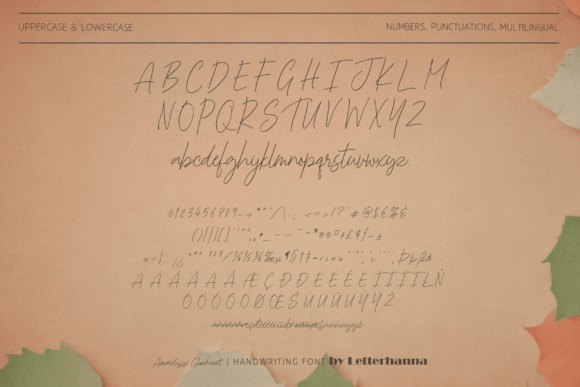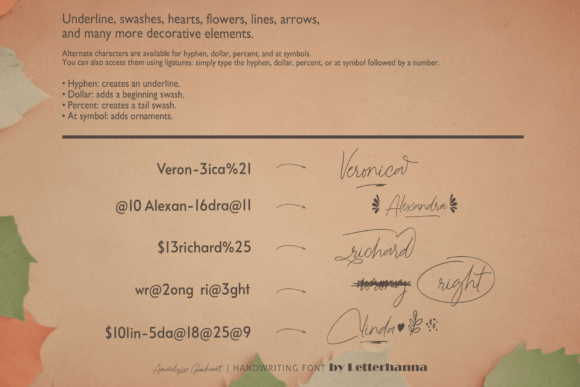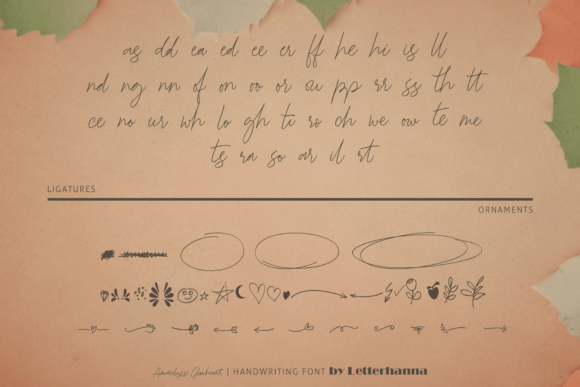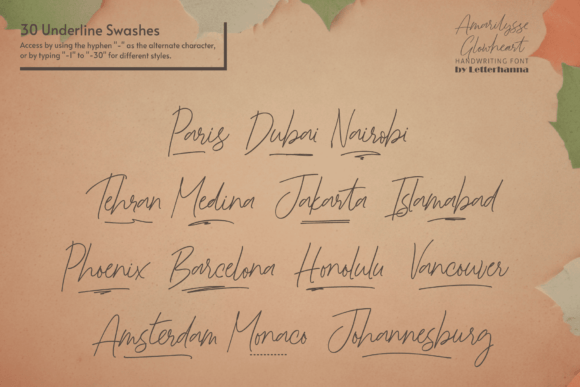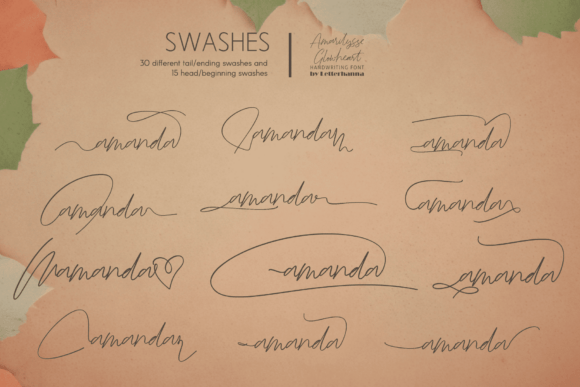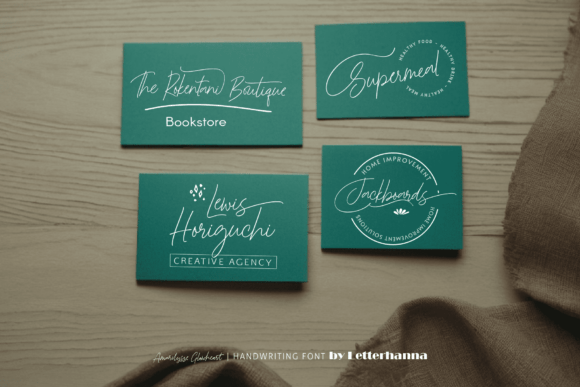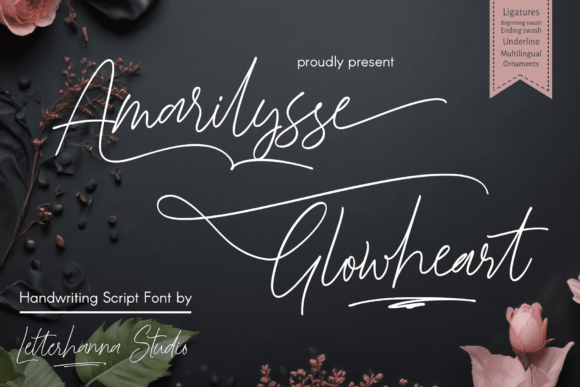
Introducing Amarilysse Glowheart: The Elegant Handwriting Script Font
In the world of typography, few fonts manage to capture the essence of elegance and warmth as effectively as Amarilysse Glowheart. This beautiful handwriting script font is designed to bring a touch of sophistication and charm to any project, making it perfect for designers and crafters looking for a versatile and stylish font. With its flowing curves and heartwarming strokes, Amarilysse Glowheart radiates a sense of luxury and refinement that is sure to leave a lasting impression.
A Font that Exudes Elegance and Warmth
Amarilysse Glowheart is a masterfully crafted font that boasts smooth connections, elegant ligatures, and beautiful swashes. Its flowing curves and heartwarming strokes evoke the charm of natural penmanship, making it an ideal choice for a variety of applications, from wedding invitations and branding to social media posts and personal projects. Whether you’re looking to add a touch of elegance to your designs or simply want to create something beautiful, Amarilysse Glowheart is the perfect font for the job.
One of the things that sets Amarilysse Glowheart apart from other fonts is its versatility. Its elegant and refined design makes it perfect for a wide range of applications, including:
- Wedding invitations and stationery: Add a touch of luxury and sophistication to your wedding invitations and stationery with Amarilysse Glowheart.
- Branding: Use Amarilysse Glowheart to create a cohesive and elegant brand identity that will leave a lasting impression on your customers.
- Social media posts: Add a touch of elegance and refinement to your social media posts with Amarilysse Glowheart.
- Personal projects: Use Amarilysse Glowheart to create beautiful and unique personal projects, such as journals, planners, and crafts.
Amarilysse Glowheart is more than just a beautiful font – it also boasts a range of features and benefits that make it a joy to use. Some of the key features and benefits of Amarilysse Glowheart include:
- Smooth connections: Amarilysse Glowheart features smooth connections that create a sense of flow and continuity.
- Elegant ligatures: The font includes elegant ligatures that add a touch of sophistication and refinement.
- Swashes: Amarilysse Glowheart features beautiful swashes that can be used to add a touch of elegance and flair to your designs.
- Multilingual support: The font supports multiple languages, making it a great choice for designers and crafters who work with clients from around the world.
Why Choose Amarilysse Glowheart?
With so many fonts to choose from, why should you choose Amarilysse Glowheart? Here are just a few reasons why Amarilysse Glowheart stands out from the crowd:
- Unique and elegant design: Amarilysse Glowheart boasts a unique and elegant design that is sure to leave a lasting impression.
- Versatile: The font is versatile and can be used for a wide range of applications.
- High-quality: The font is high-quality and features smooth connections, elegant ligatures, and beautiful swashes.
In conclusion, Amarilysse Glowheart is a beautiful handwriting script font that is perfect for designers and crafters looking for a versatile and stylish font. With its flowing curves and heartwarming strokes, Amarilysse Glowheart radiates elegance and warmth, making it perfect for a wide range of applications. Whether you’re looking to add a touch of luxury to your designs or simply want to create something beautiful, Amarilysse Glowheart is the perfect choice.